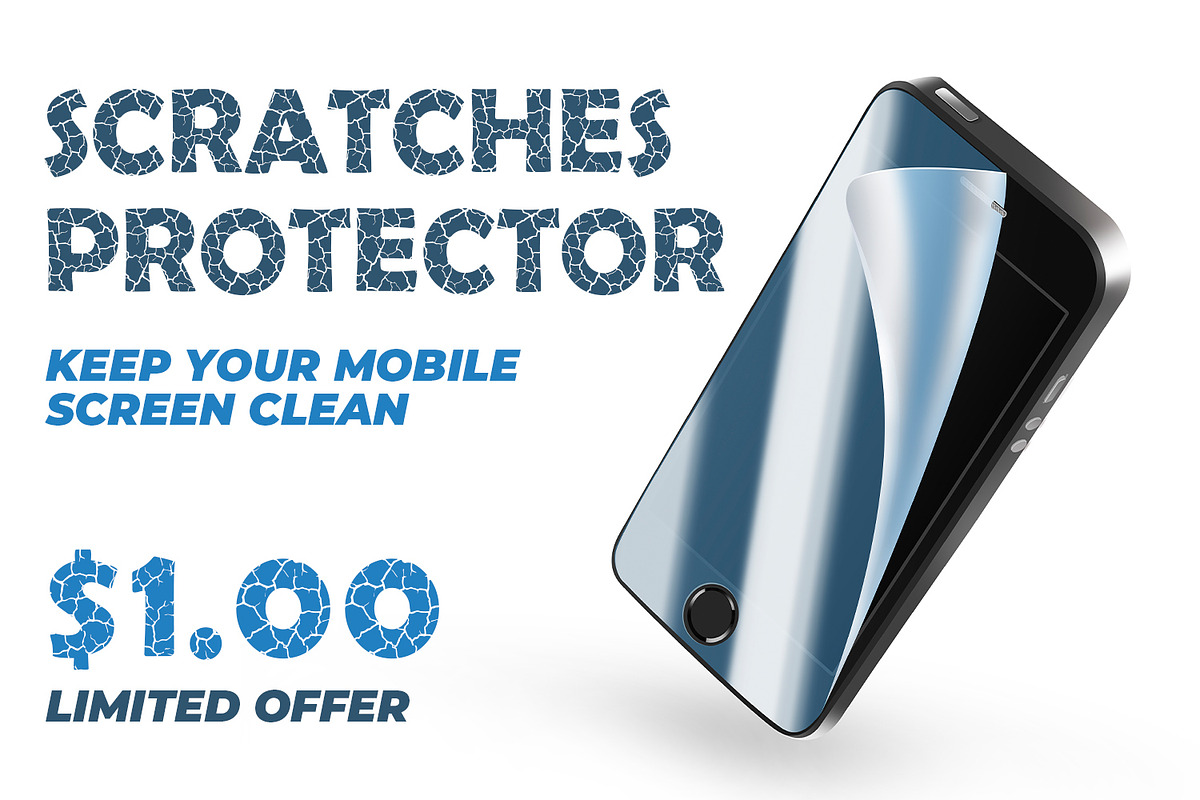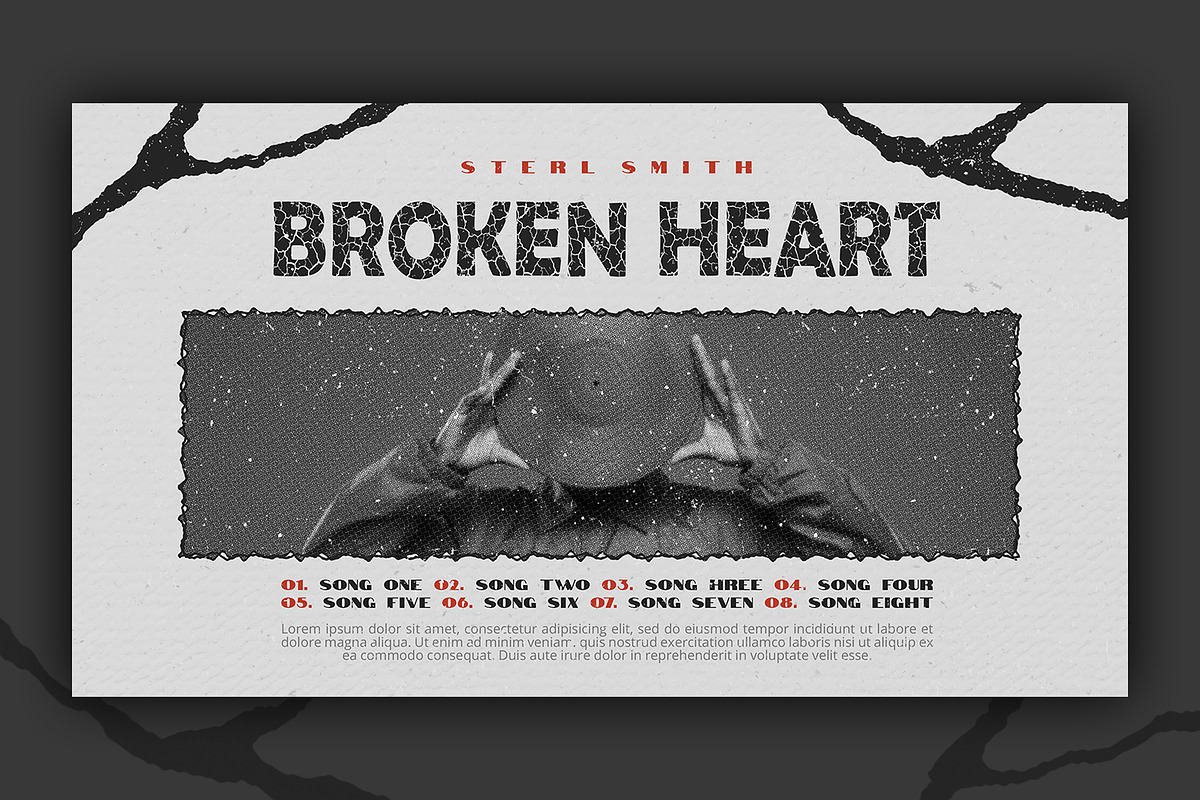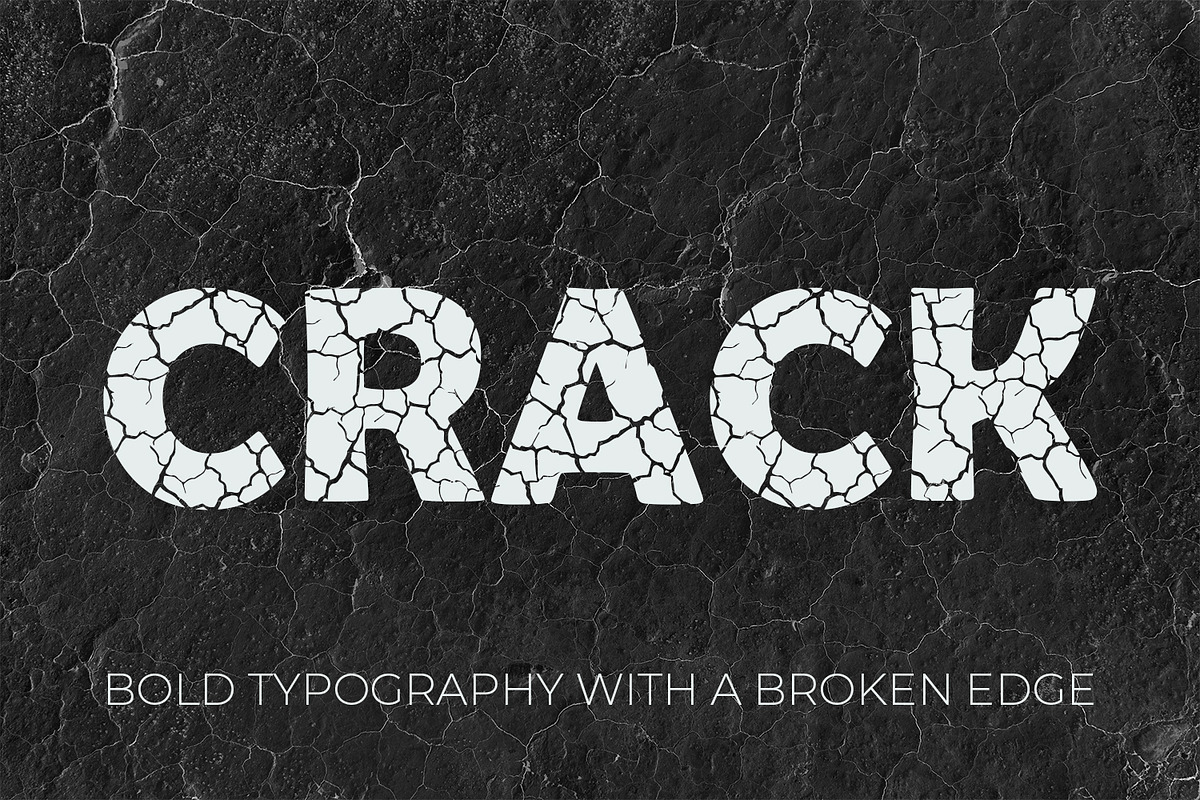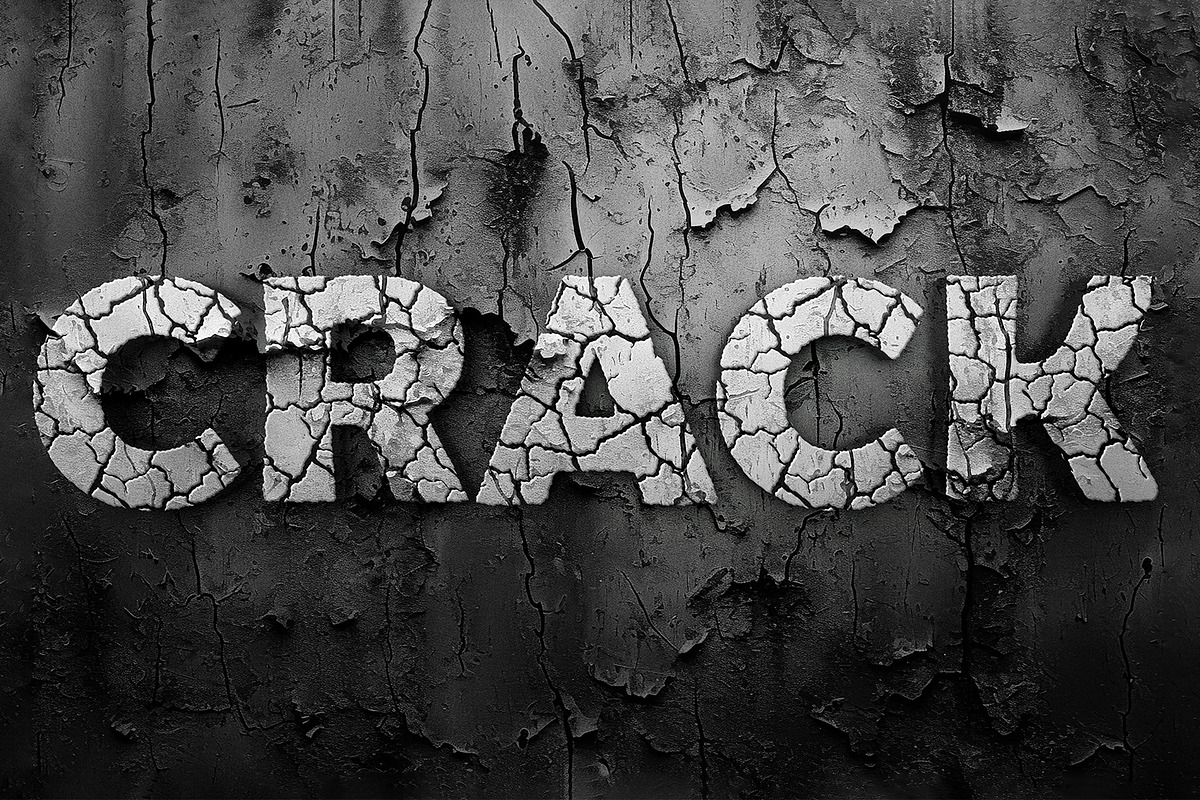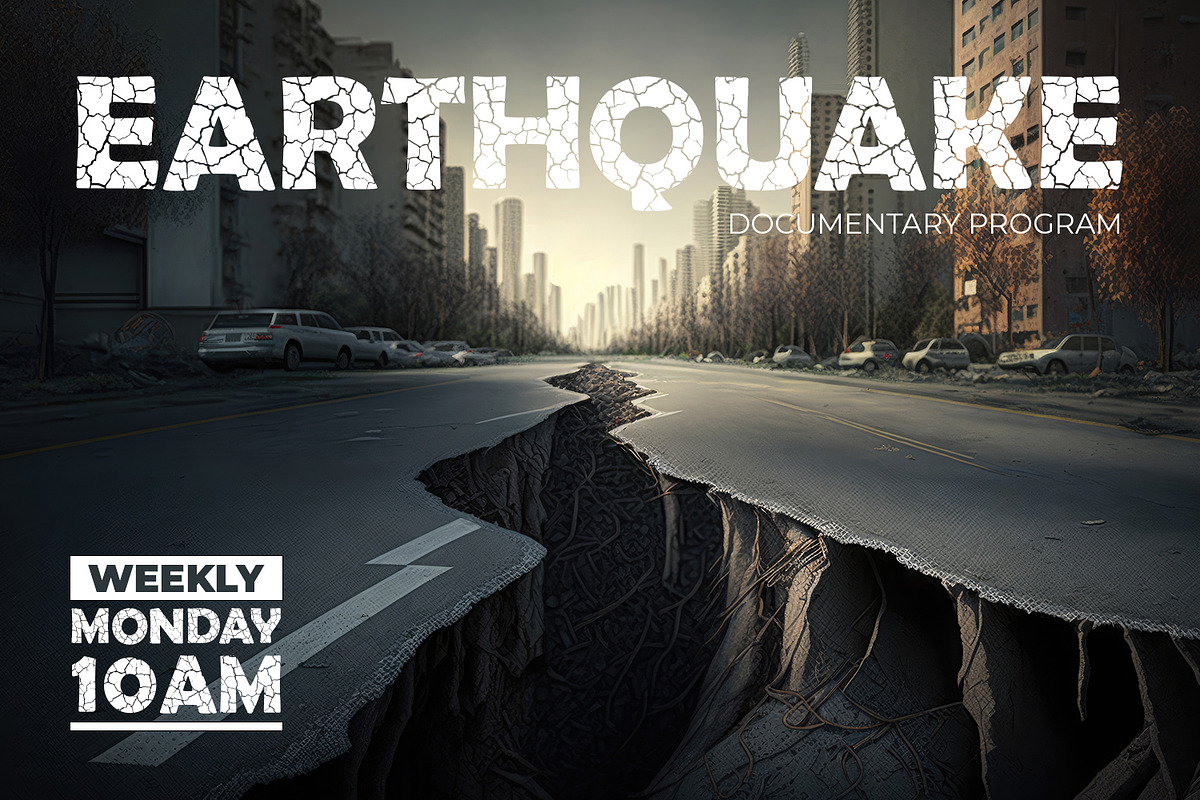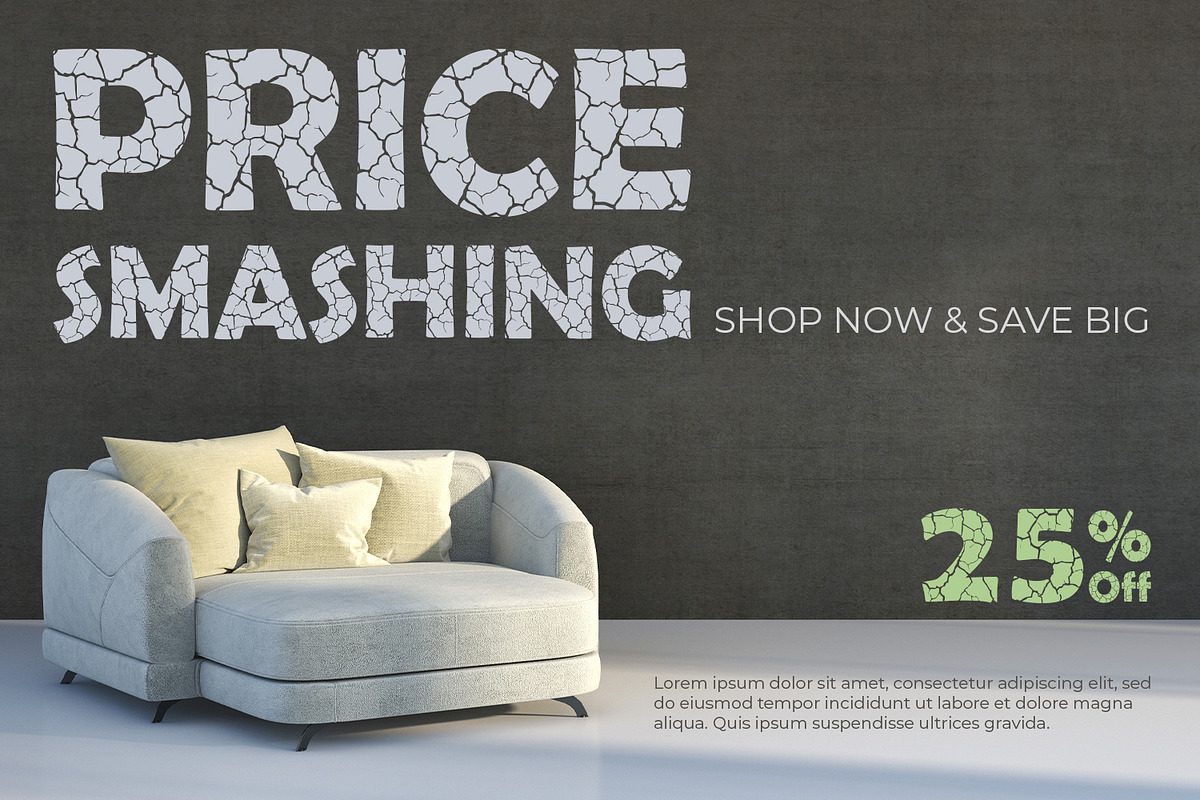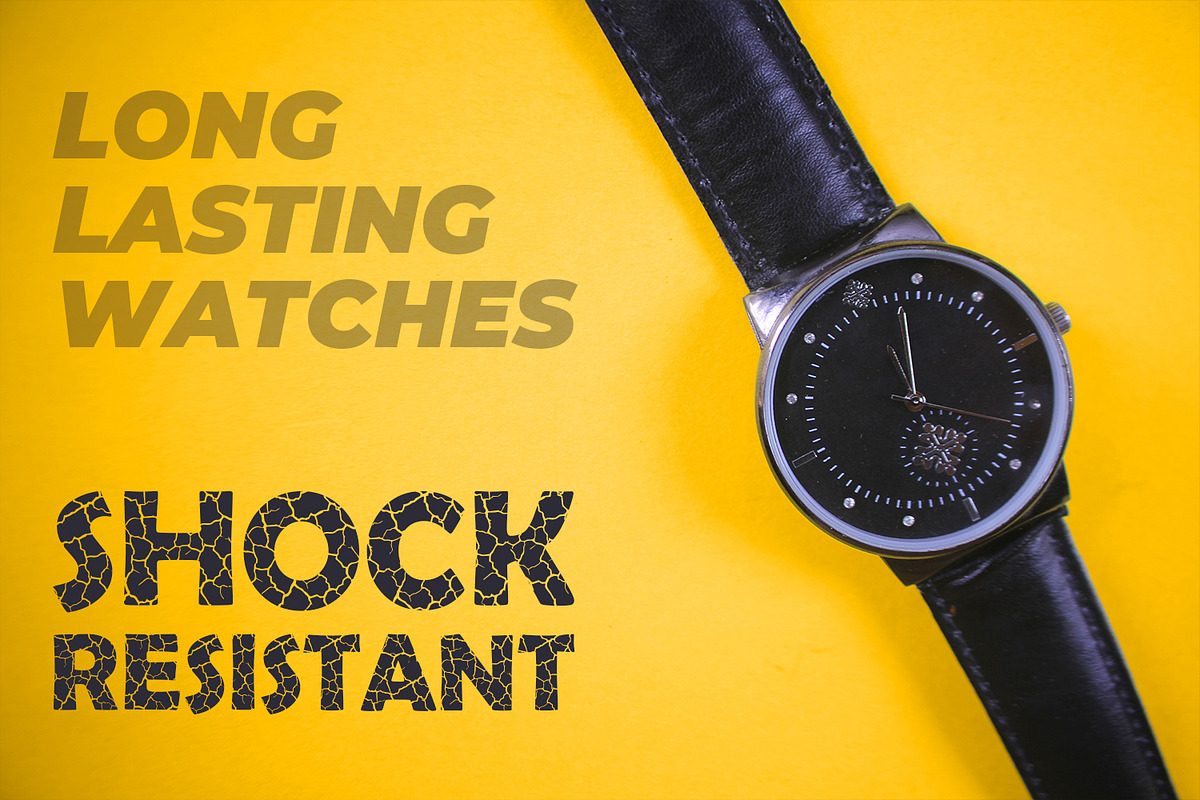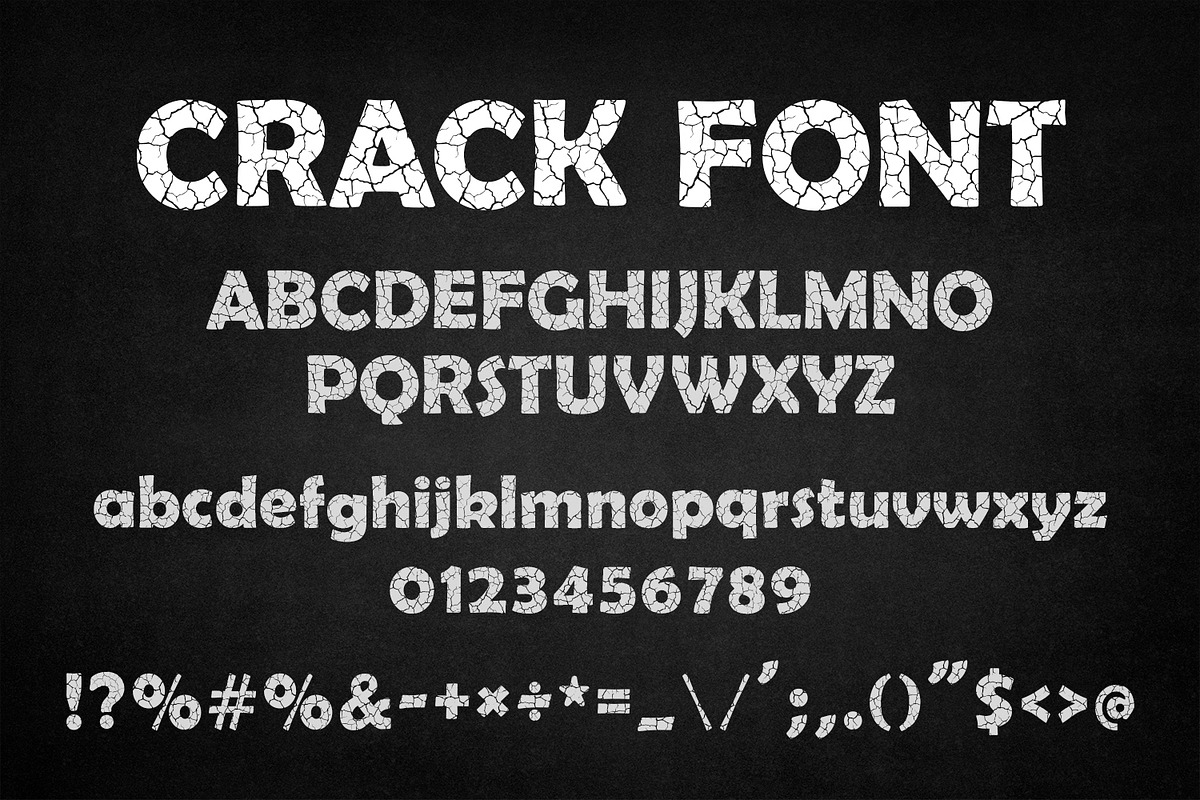
CRACK - Premium Shattered Display
Meet CRACK, the ultimate premium display font that brings a bold, shattered, and edgy vibe to your creative projects! This luxury grunge typeface features a highly detailed broken texture, making it the perfect choice for high-end streetwear, fashion apparel, and trendy t-shirt designs.
Whether you are creating elegant urban fashion branding, powerful gaming logos, striking posters, or premium merchandise, CRACK delivers an unexpectedly sophisticated yet aggressive aesthetic. Elevate your portfolio with this best-in-class textured typeface and make your designs truly unforgettable!